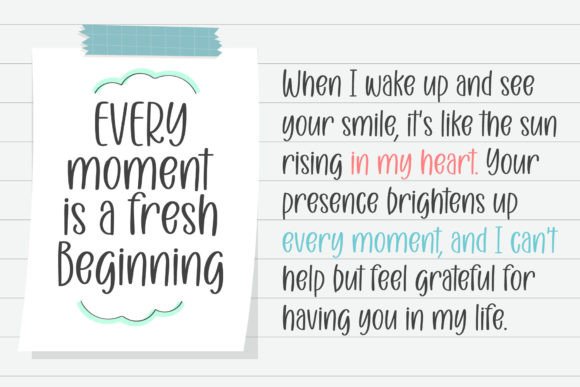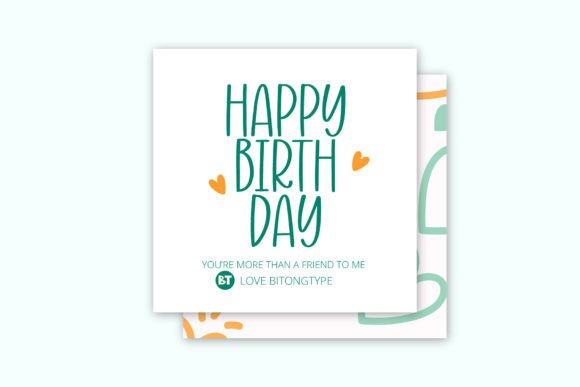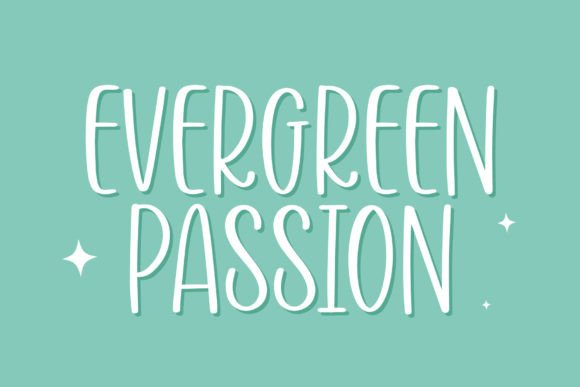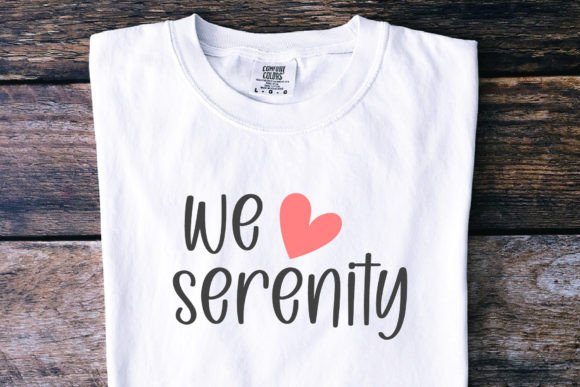
Study Sans Font
Study Sans is a sweet and cute handwritten font. Fall in love with its incredibly versatile style and use it to create gorgeous wedding invitations, beautiful stationary art, eye-catching social media posts, and much more!